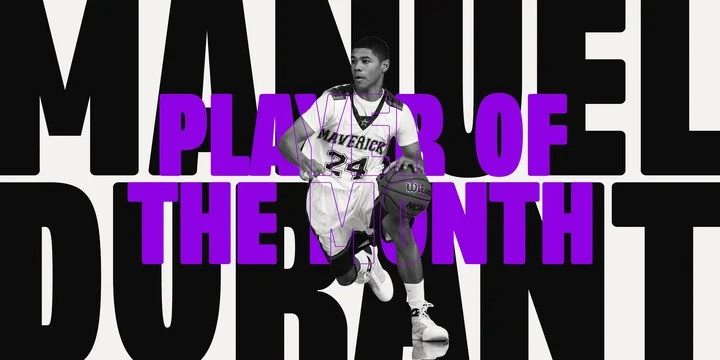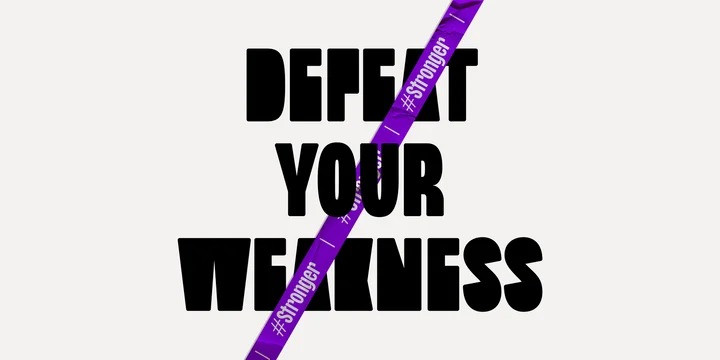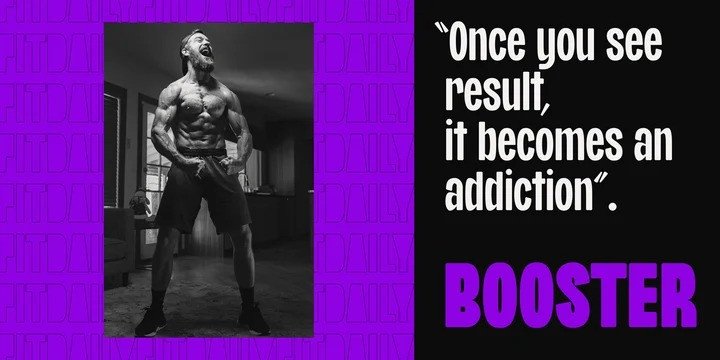
Knocky Font
Knocky Sans Serif Font
This typeface is a stylish font It has both modern and retro look – clear, modern and fun. It has solid alternatives to letters, numbers, and some symbols, plus an outline style that will make the graphic look unique and stand out.
With 8 styles and more than 530 glyphs in each. knocky has multi-language support, it will be perfect for many projects from editorial design to branding, advertising, publicity and digital.